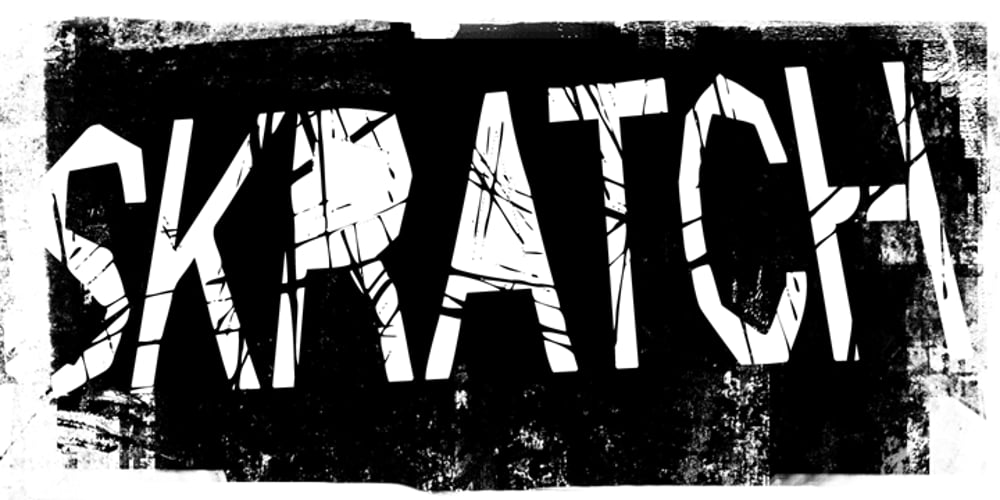
Skratch
Skratch font
Skratch Font Family was designed by David Kerkhoff and published by Hanoded. Skratch contains 2 styles and family package options. Skratch is scratched. Skratch is distressed. Skratch is eroded. Skratch is.